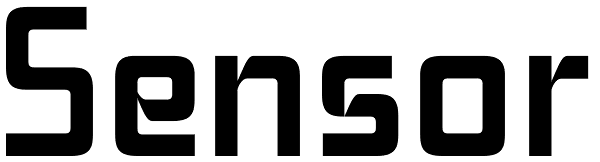
Sensor
Square "robocap" typeface containing some little bit of experimental letters such as "t" or "f". Designed by Dusan Jelesijevic who wanted to make a font that would look heavy as building construction printed on your shirts. Even if it looks strong...